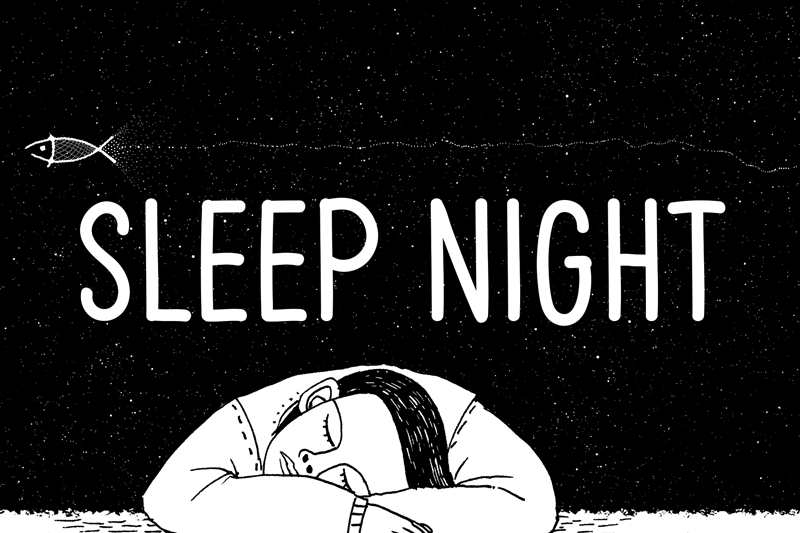
Font name: | Sleep Night |
Author: | Andmicro Studio |
ETAILS special creative products for you, our products will give you an extraordinary experience. the latest style letters are perfect for wall displays, wedding invitations, social media post logos, advertisements, product packaging, product designs, labels, photography, watermarks, invitations, stationery, and any project that requires taste handwriting. Links for license and contact: ================================================== ========= https://scratchones.com/license/ gmail : afistakosongtujuh@gmail.com ================================================== ========= ATTENTION: WARNING!!! By installing or using this font, you agree to the Product Use Agreement: - This font has a FULL VERSION and is ONLY for PERSONAL USE. NO COMMERCIAL USE! - If you need CUSTOM PERMIT or COMPANY PERMIT please go to :(www.scratchones.com) - Any donations are greatly appreciated. Paypal account for donations: (paypal.me/scratchones) USE OF COMMERCIAL FONT WITHOUT PURCHASE OF LICENSE OFFICIAL www.scratchones.com will be fined 8X THE MINIMUM LICENSE FEES FROM THE LICENSE PRICE !!!! thanks. |